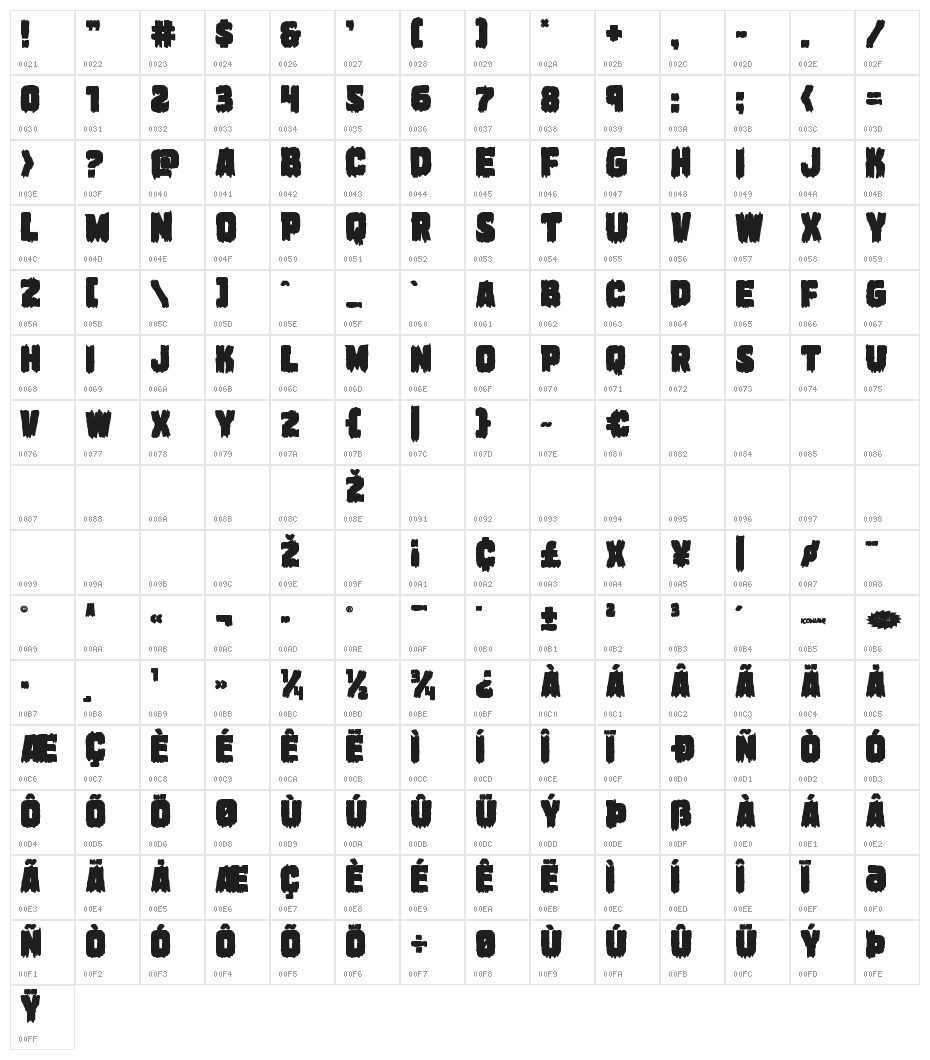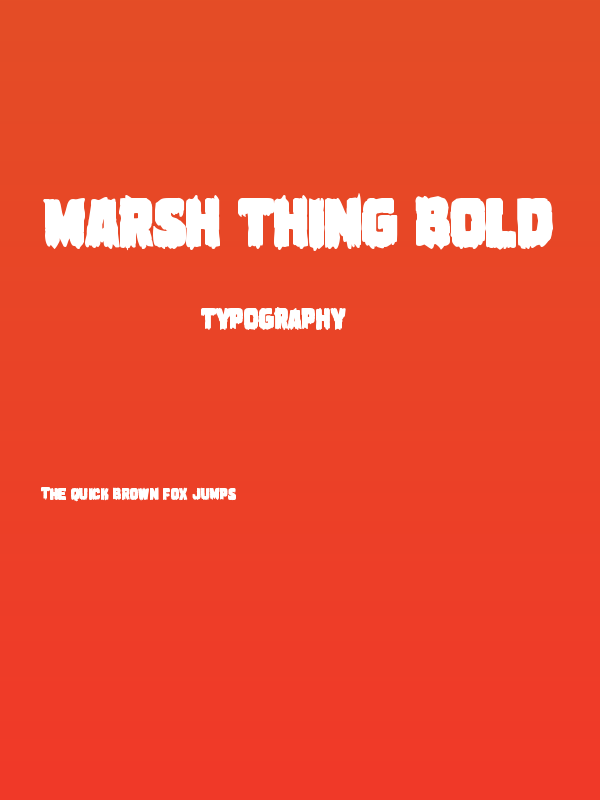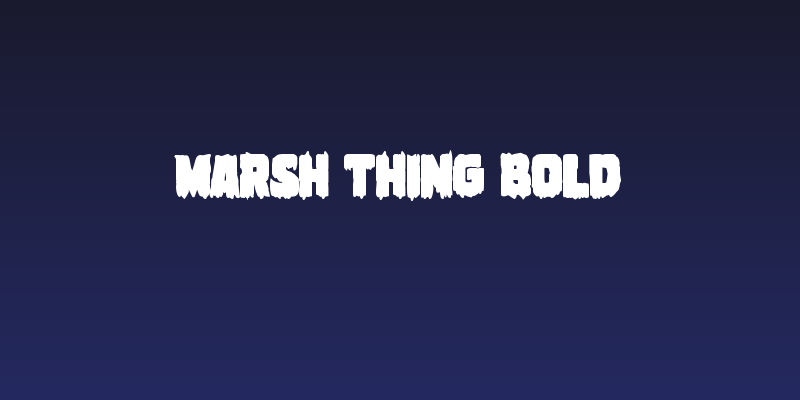
Marsh Thing Bold Font
Marsh Thing Bold Description
This font features a bold and rugged design, reminiscent of dripping or melting elements, giving it a unique and eye-catching appearance. The characters are heavily weighted with irregular edges, creating a sense of movement and fluidity. The uppercase and lowercase letters maintain a consistent style, while the numbers and special characters complement the overall aesthetic. This font is perfect for projects that require a dramatic and impactful visual statement, such as horror-themed designs or Halloween events.
| Use Case | Headlines, Posters, Themed Events |
| Proposed Projects | Ideal for horror-themed posters, Halloween invitations, and dramatic headlines. |